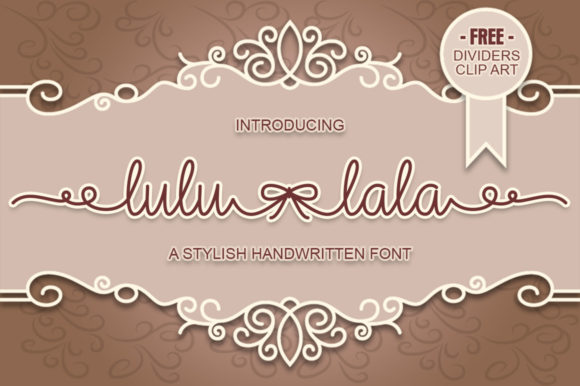
Embark on a calligraphic journey with Lulu-Lala, a script font that exudes charm and playfulness. Its meticulously crafted characters dance across the page, captivating the reader with their unique flair. Lulu-Lala is not just a font; it's an expression of your distinctive style, a reflection of your whimsical personality.
Immerse yourself in the world of Lulu-Lala, where letters transform into delicate brushstrokes, flowing effortlessly like a gentle breeze. Each glyph is a tiny masterpiece, adorned with intricate details that add depth and dimension to your designs. Lulu-Lala's organic charm will infuse your projects with a touch of warmth and personality.
With Lulu-Lala, you'll discover the joy of handwritten typography. Its whimsical nature lends itself perfectly to invitations, greeting cards, logos, posters, and any project that calls for a dash of whimsy. Let your imagination soar as you explore the endless creative possibilities that Lulu-Lala unlocks.
Whether you're a seasoned designer or just starting your creative journey, Lulu-Lala is the perfect companion. Its user-friendly design makes it a breeze to use, even for beginners. Unleash your creativity and watch as your designs come to life with Lulu-Lala's enchanting touch.
Join the growing community of designers who have fallen in love with Lulu-Lala's irresistible charm. Experience the joy of creating designs that captivate and inspire. Let Lulu-Lala be your muse, guiding you towards a world of creative fulfillment.